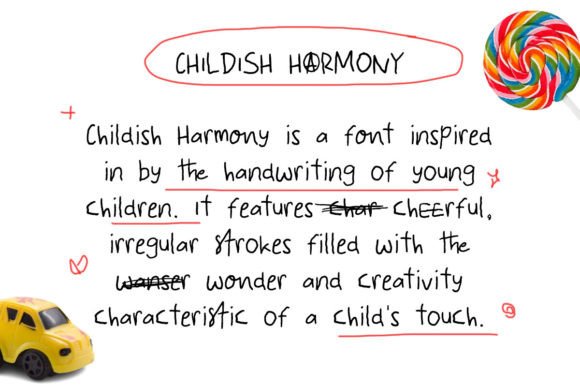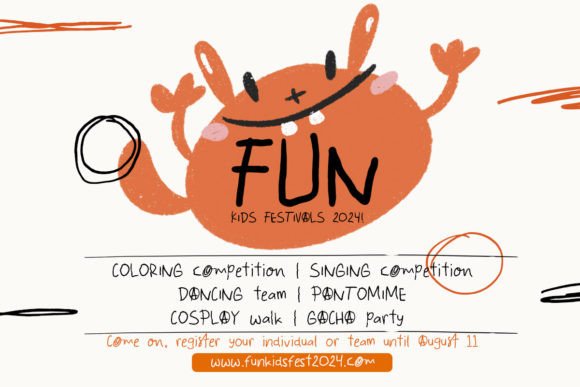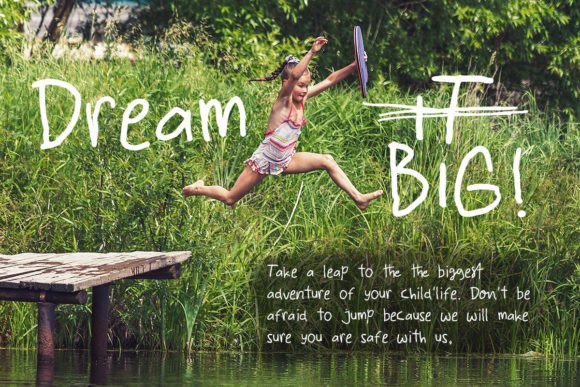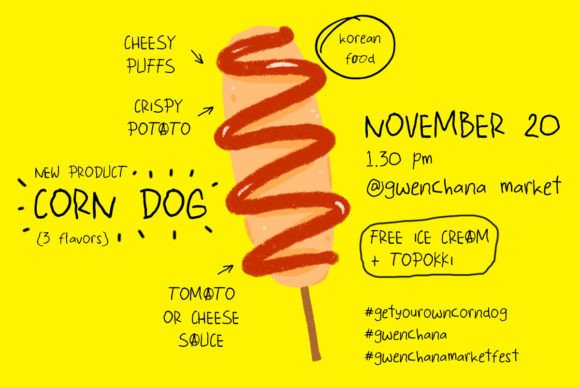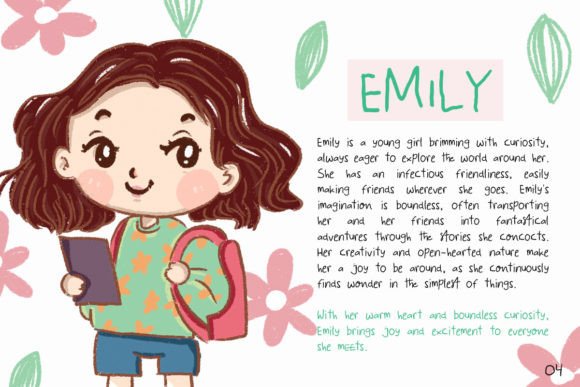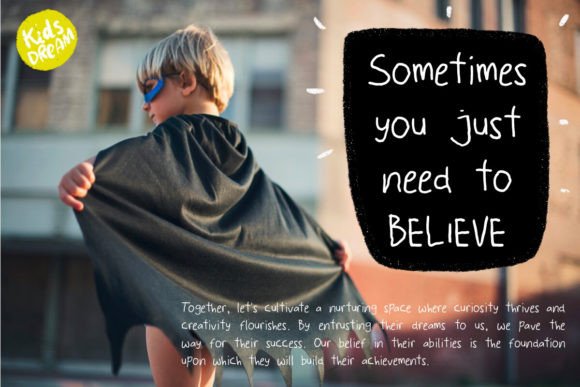
Introduction to Childish Harmony Font
Childish Harmony is a font inspired by the handwriting of young children.
It features cheerful, irregular strokes filled with the wonder and creativity characteristic of a child’s touch Each letter has unique variations, as if written by small, enthusiastic hands.
Key Features of Childish Harmony Font
Why Choose Childish Harmony Font?